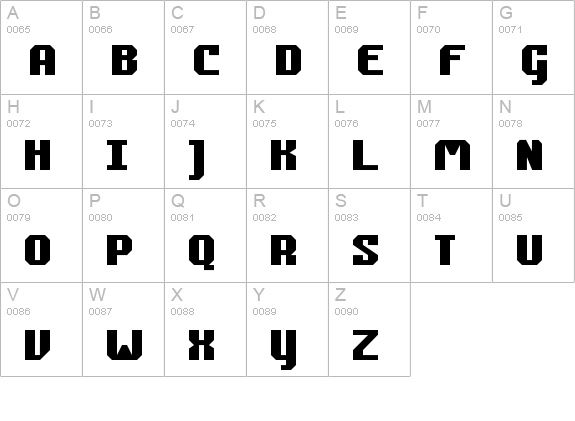
Commonwealth2 Font Details
Introducing Commonwealth2 font – a versatile and modern typeface that is sure to make a statement in any design project. With its clean lines and sharp edges, Commonwealth2 exudes a sense of sophistication and professionalism. This font is perfect for a wide range of uses, from branding and advertising to web design and print materials. But the best part? Commonwealth2 is completely free to download at FontsMarket.com! That's right, you can elevate your designs without spending a dime. Don't miss out on this fantastic opportunity to add a touch of elegance to your projects with Commonwealth2 font. Download it now and let your creativity soar!